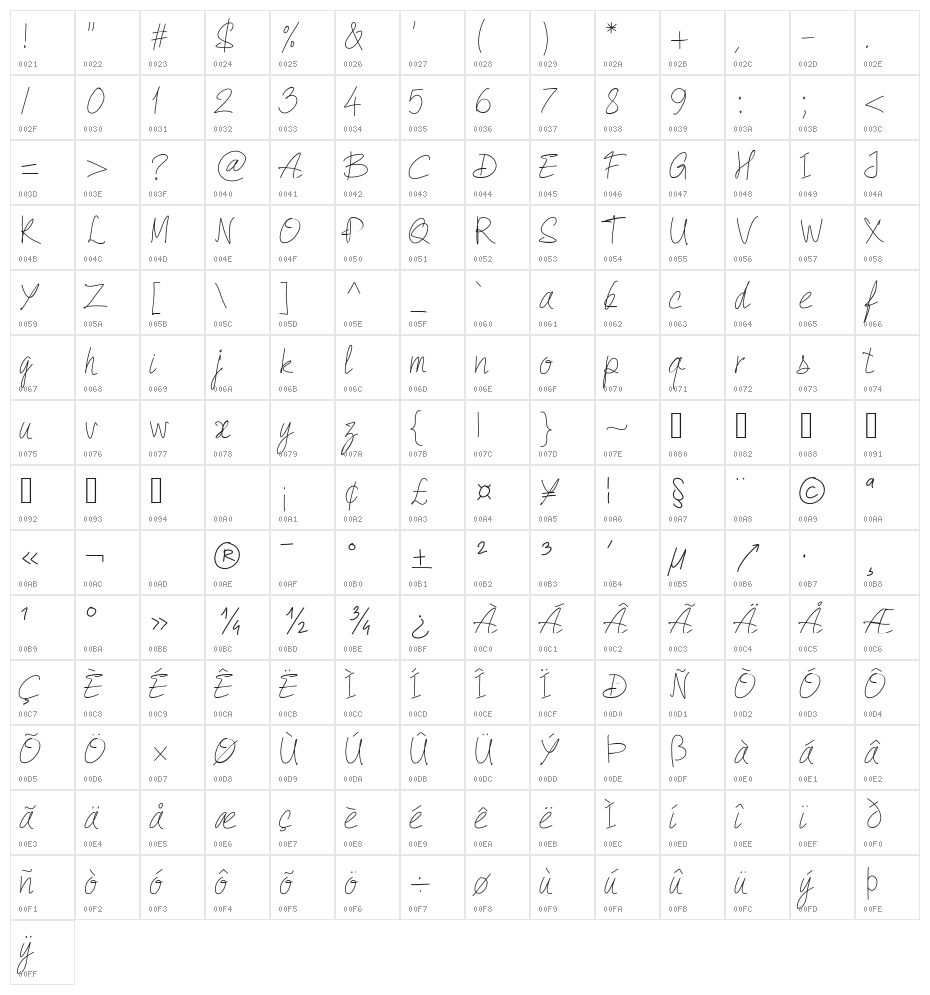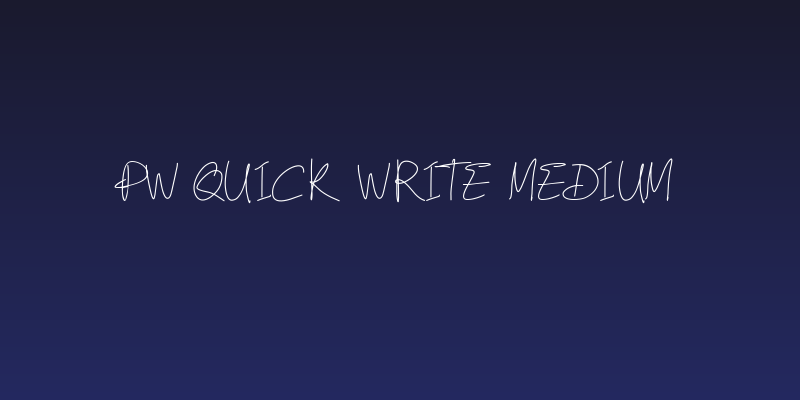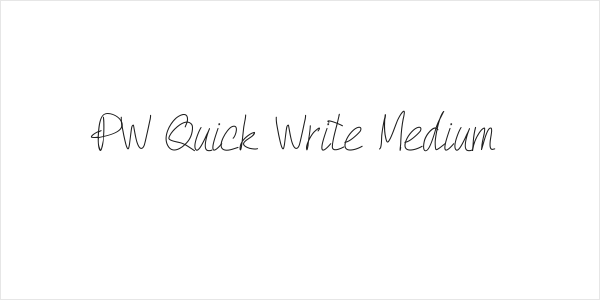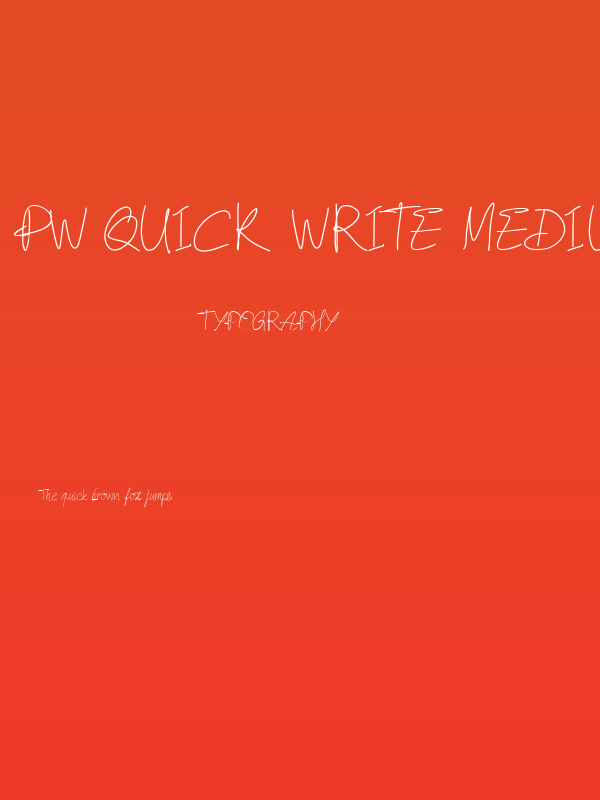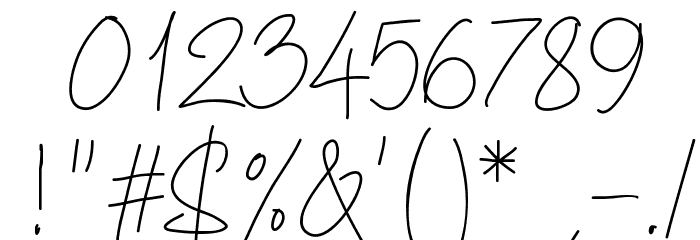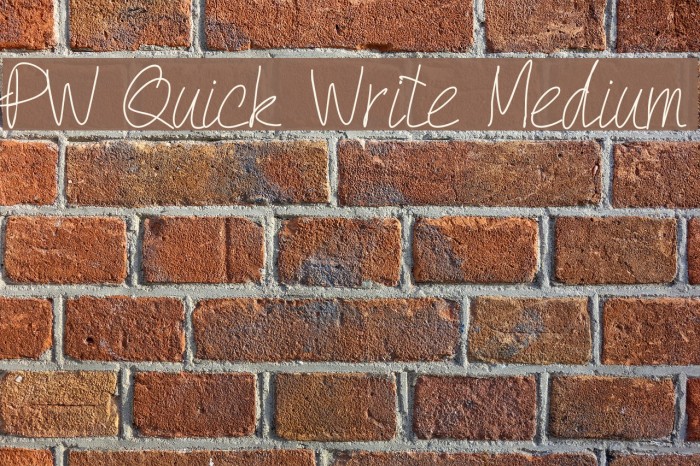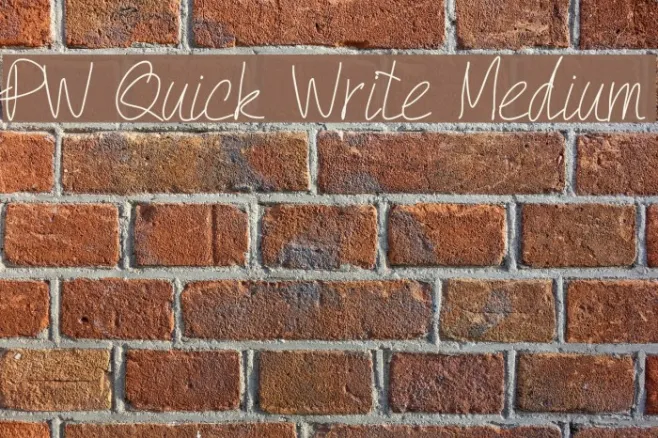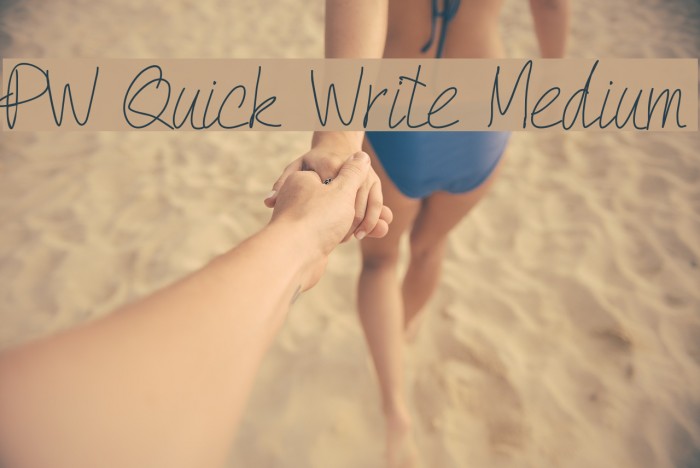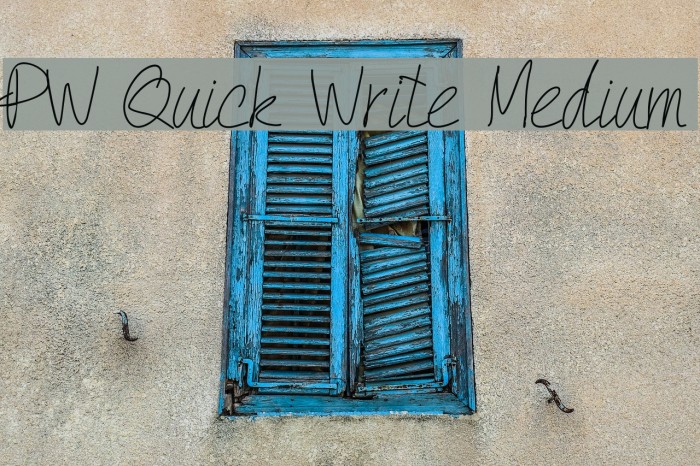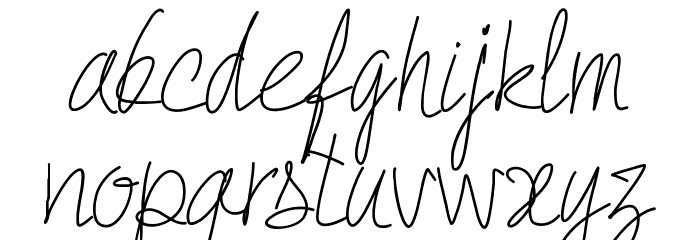
PW Quick Write Medium Font
PW Quick Write Medium Description
This font features a lively and dynamic handwritten style, characterized by its fluid and continuous strokes that mimic natural handwriting. The letters are slightly slanted, adding a sense of motion and energy. The uppercase and lowercase letters maintain a consistent flow, with some letters extending below the baseline, enhancing its casual and informal appearance. The numerals and special characters are crafted with the same playful and spontaneous touch, making them blend seamlessly with the alphabet. This font's unique personality makes it suitable for projects that require a personal and approachable feel.